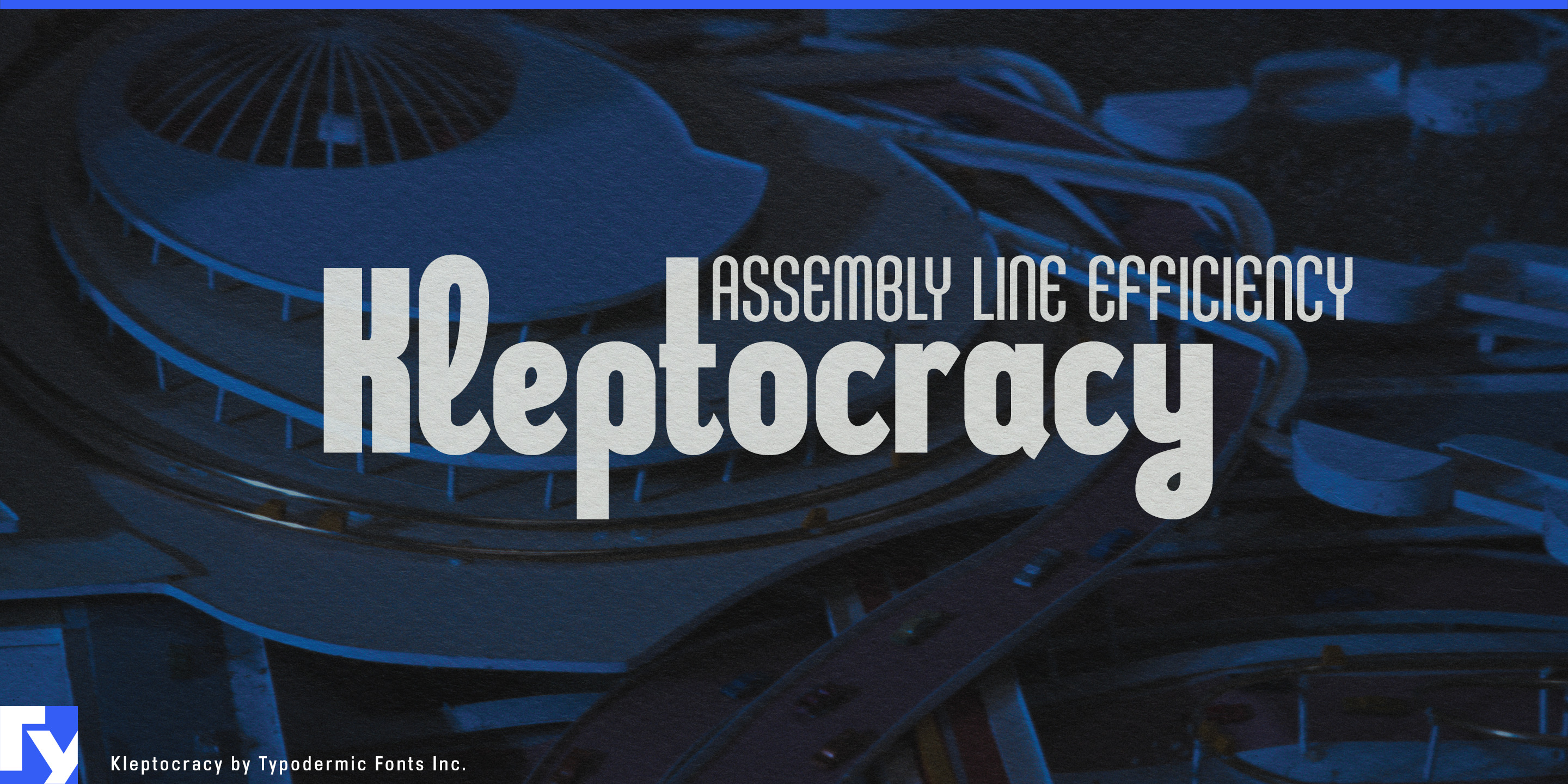
Kleptocracy Titling
Raymond Larabie / Typodermic Fonts Inc. · Regular · Kleptocracy Titling
Kleptocracy Titling is an all-caps industrial workhorse typeface built to take command of the page. With its compact proportions and utilitarian geometry, it channels the grit of factory lettering while adding just enough refinement to thrive in contemporary design. Look closely and you’ll catch subtle cursive-inspired details that soften the edges, giving headlines a touch of intrigue without sacrificing strength.
Offered in three weights and three widths, Kleptocracy Titling adapts easily to your needs—condensed for tight layouts, wide for bold statements, or balanced in between. It’s a natural fit for logos, posters, packaging, and any project that needs type to cut through the noise with precision.
When it’s time to make a statement that’s confident, clear, and unshakably bold, Kleptocracy Titling delivers.